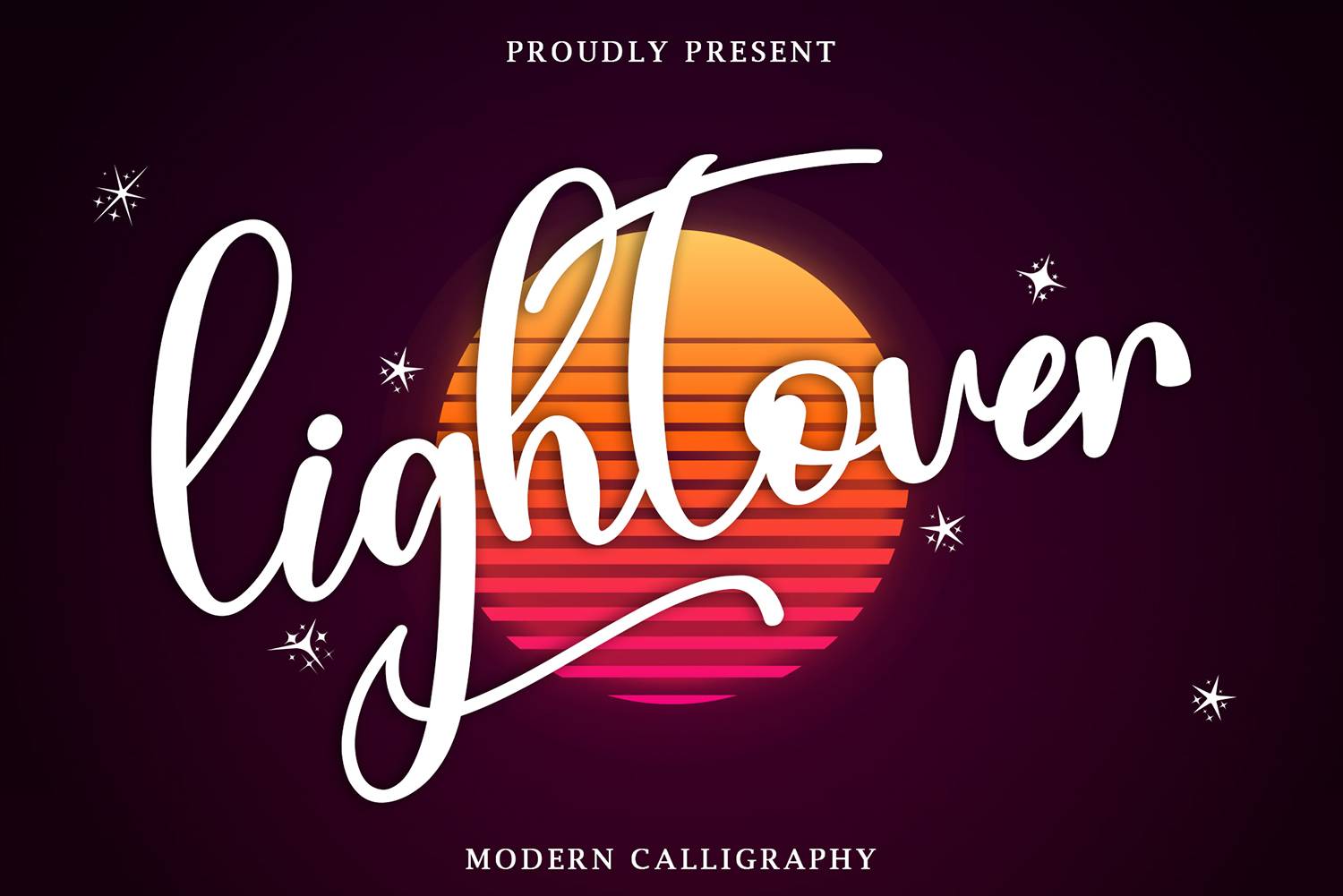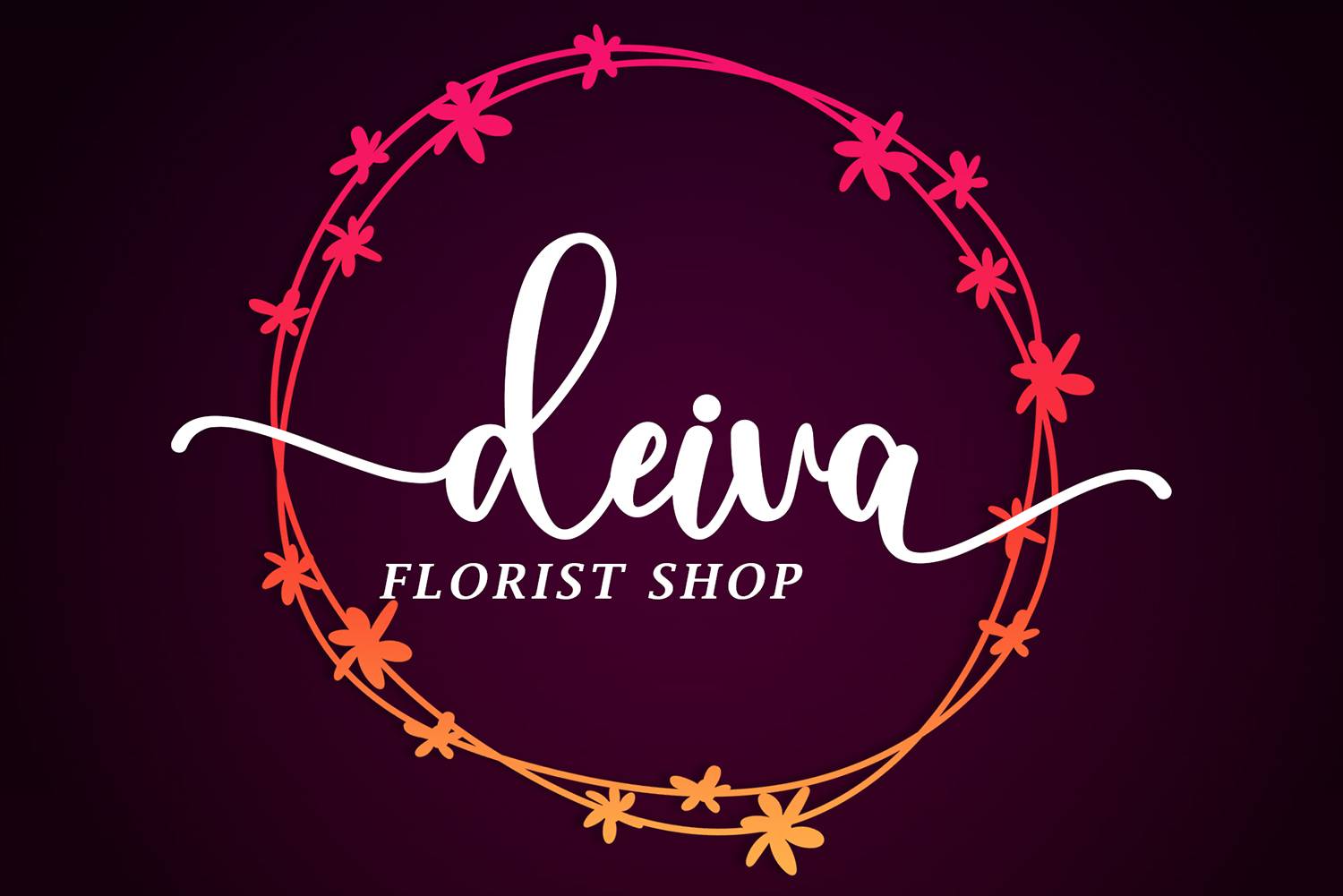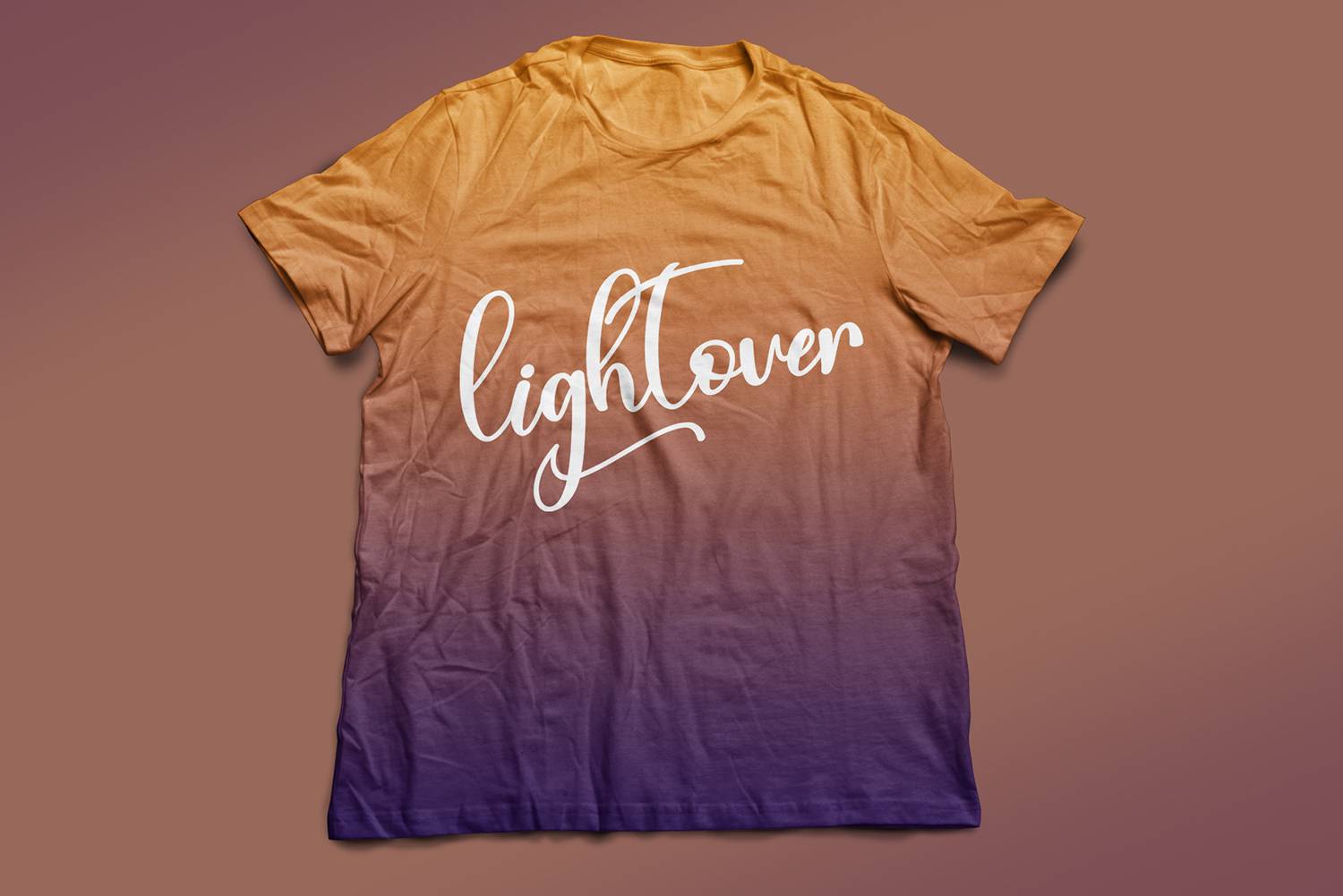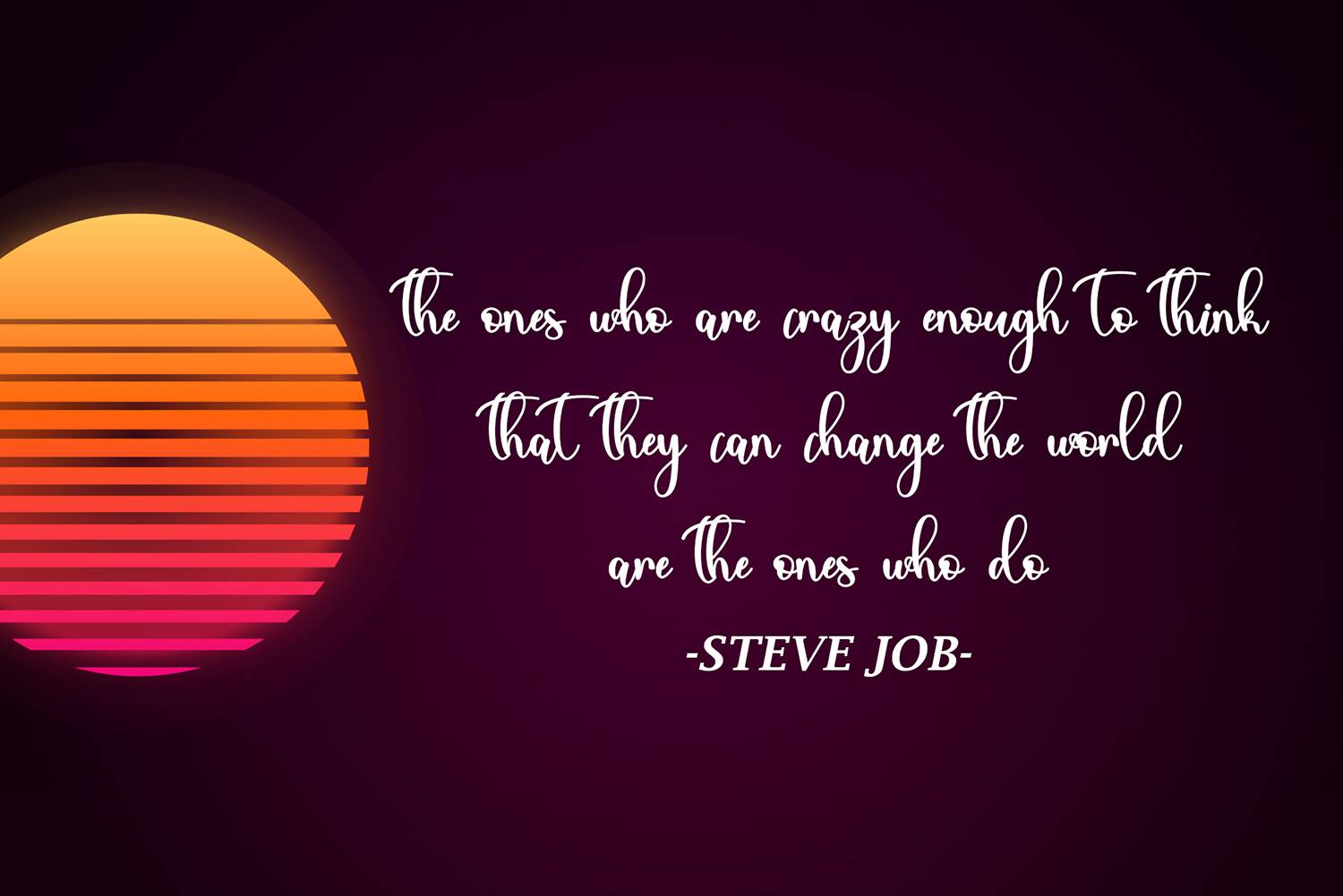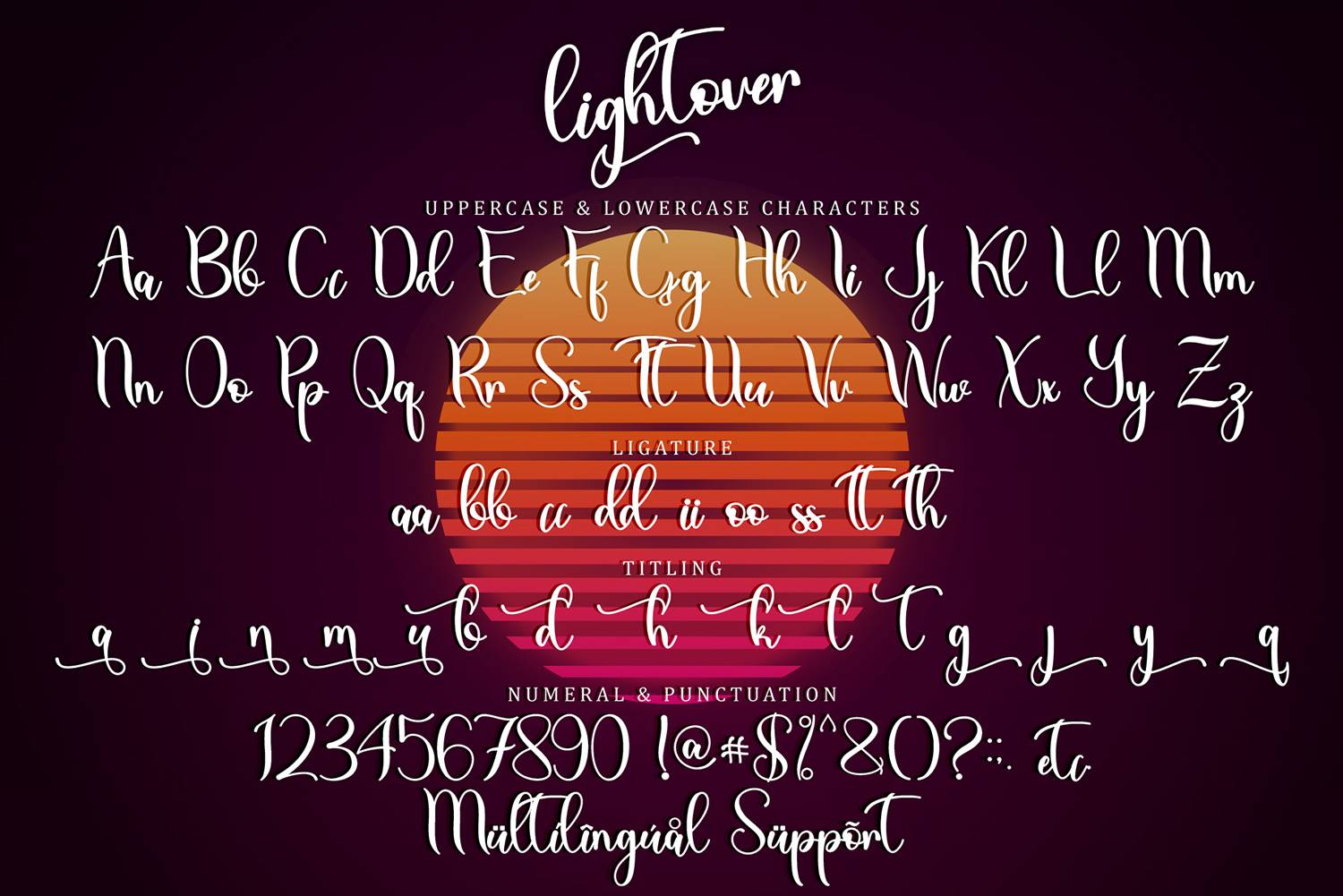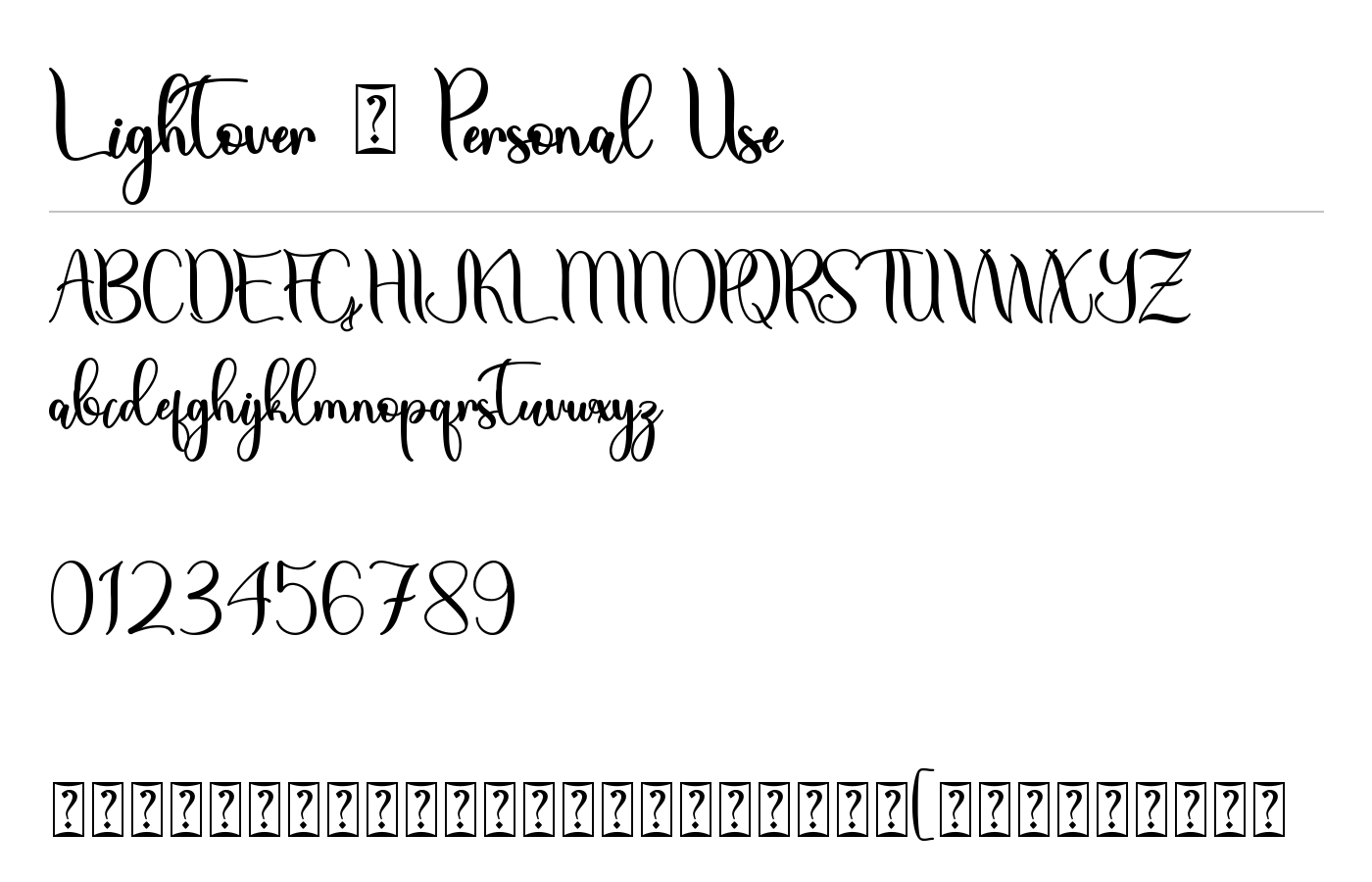
Lightover is a delicate, handwritten script font featuring elegant, flowing strokes and a playful yet refined personality. Its slender, slightly whimsical letterforms create a charming and personal feel, making it ideal for creative projects such as invitations, branding, and decorative headlines where a touch of warmth and sophistication is desired.
Lightover Font